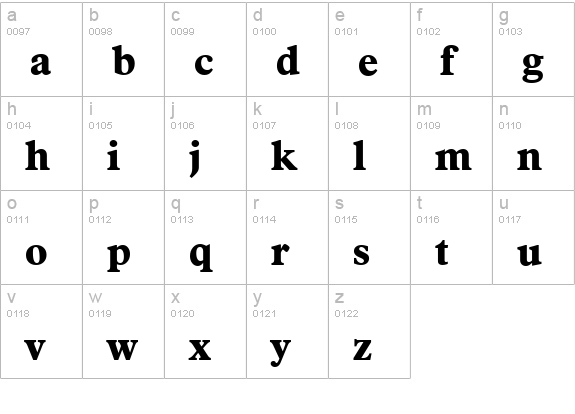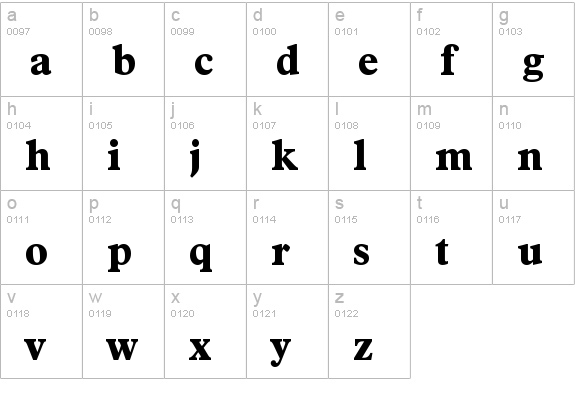
FranciscoSerial-Xbold-Regular is the standard, neutral variant in the FranciscoSerial typeface family \xE2\x80\x94 well suited to general body text, paragraphs, and standard typographic work.
FranciscoSerial-Xbold-Regular is a sleek and modern font that exudes confidence and professionalism. Its bold and strong letterforms make it perfect for creating eye-catching headlines, titles, and branding materials. The sharp edges and clean lines of this typeface give it a contemporary feel that will instantly elevate any design project. Best of all, FranciscoSerial-Xbold-Regular is available for free download at FontsMarket.com. Whether you're working on a personal project or a client's design, this font is a versatile choice that will surely make a statement. Download FranciscoSerial-Xbold-Regular today and add a touch of sophistication to your designs.